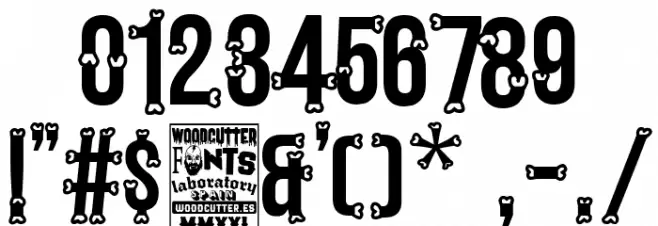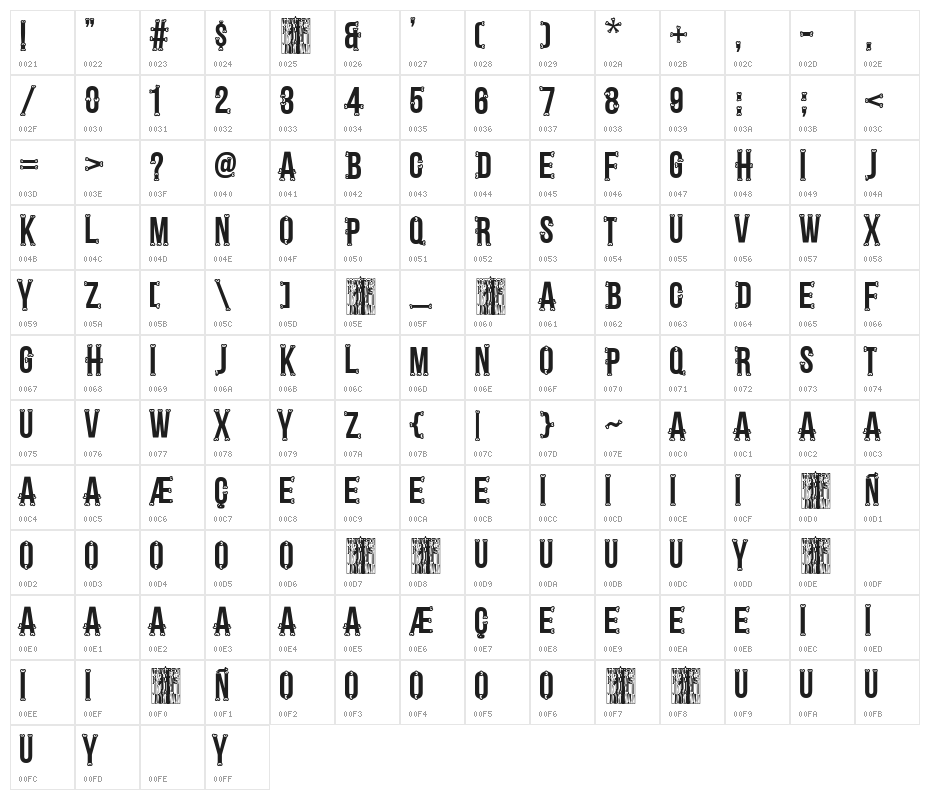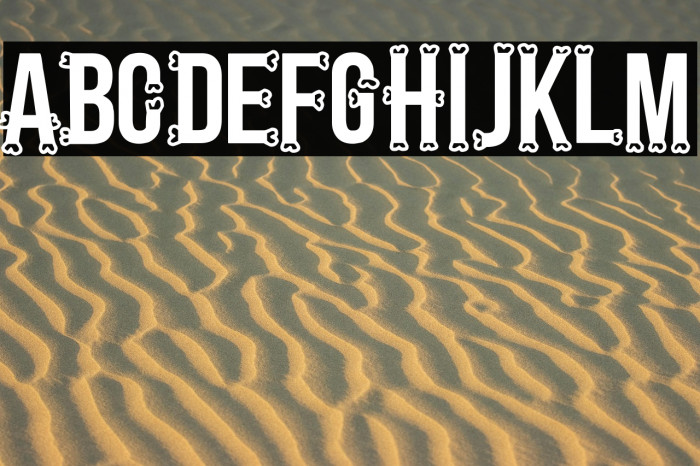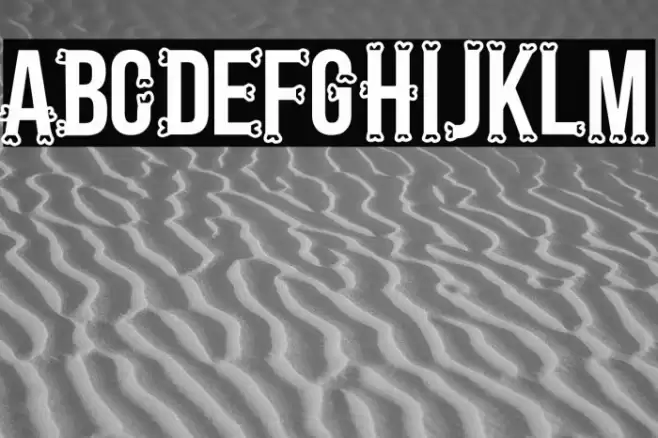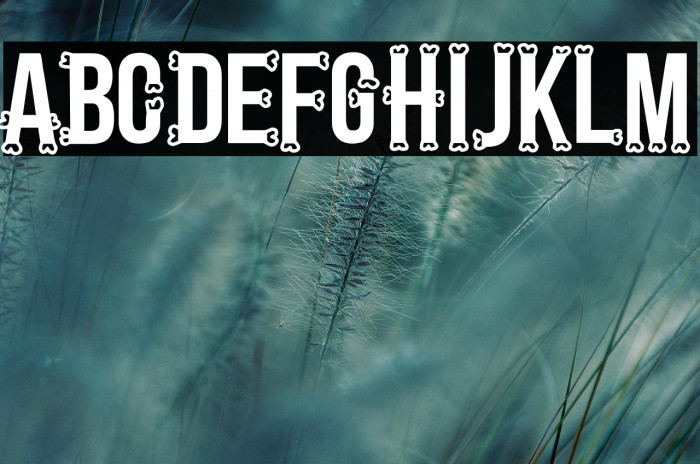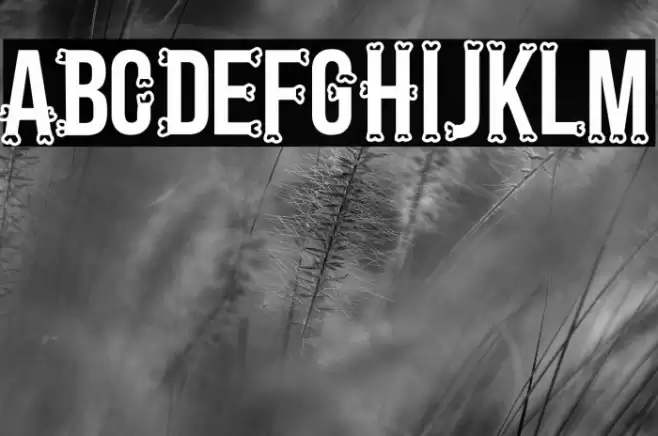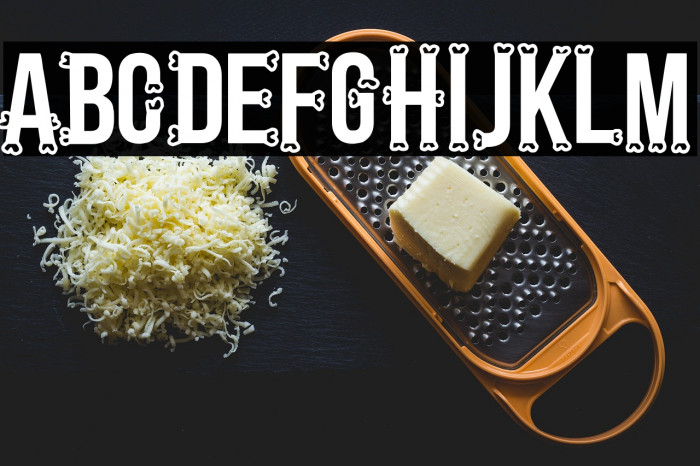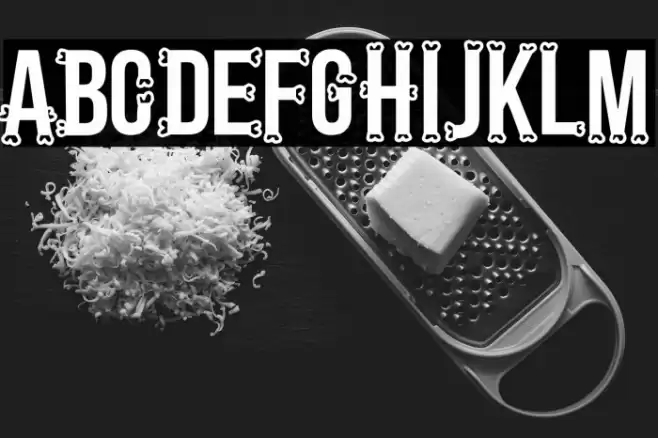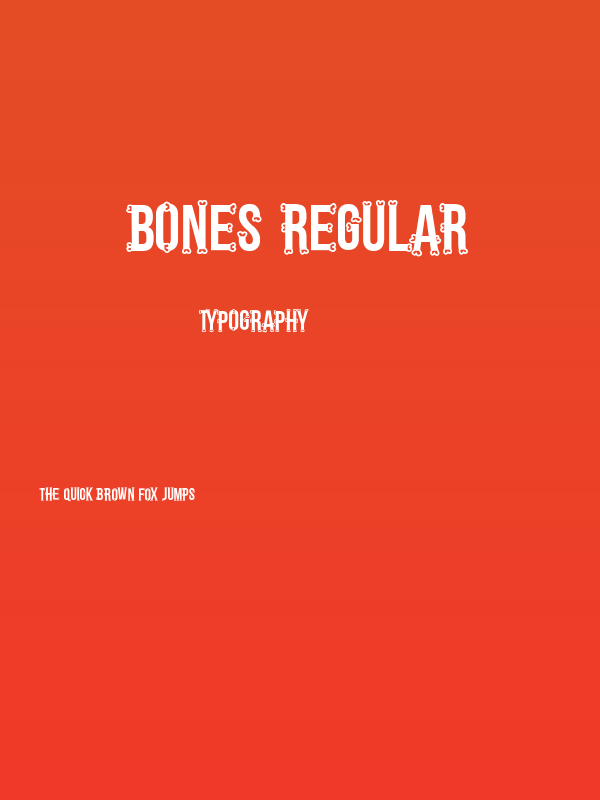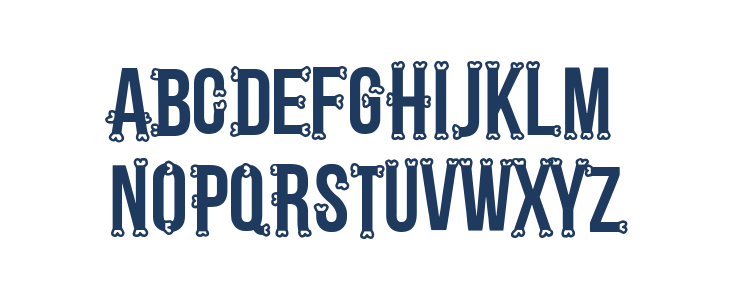
Bones Regular Font
Bones Regular Description
This font features a playful and spooky design, with each character resembling bones. The letters are bold and have a decorative style, making them stand out with a unique skeletal appearance. The uppercase and lowercase letters maintain a consistent theme, with bone-like extensions at the ends of each stroke. Numbers and special characters are also designed to match this bone motif, adding to the cohesive look. The font is ideal for Halloween-themed projects or any design that requires a touch of the macabre. Its bold and decorative nature makes it unsuitable for body text but perfect for headlines and logos.
| Proposed Projects | Ideal for Halloween invitations, horror movie posters, themed party decorations, and any project requiring a spooky or playful touch. |